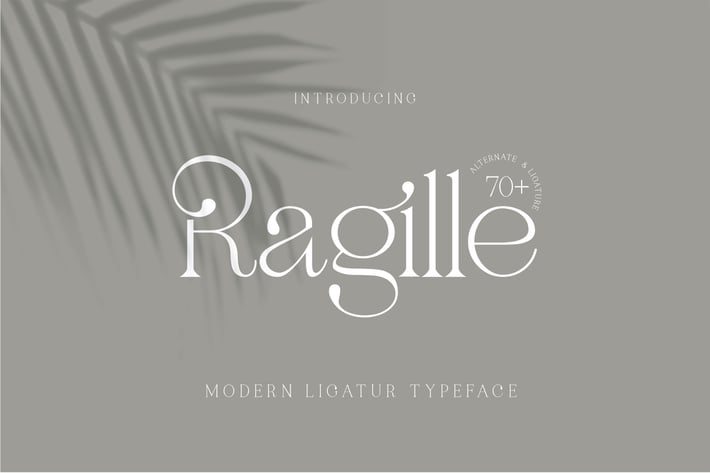
Ragille || Modern Serif Typeface
Ragille Serif is a balanced, smooth, elegant and stylish serif font. He has a beautiful character. It fits perfectly with invitation card designs, company logos, movie titles, movie names, business cards, book titles, brand names and various other designs.
- Uppercase and lowercase
- Numbering and Punctuation